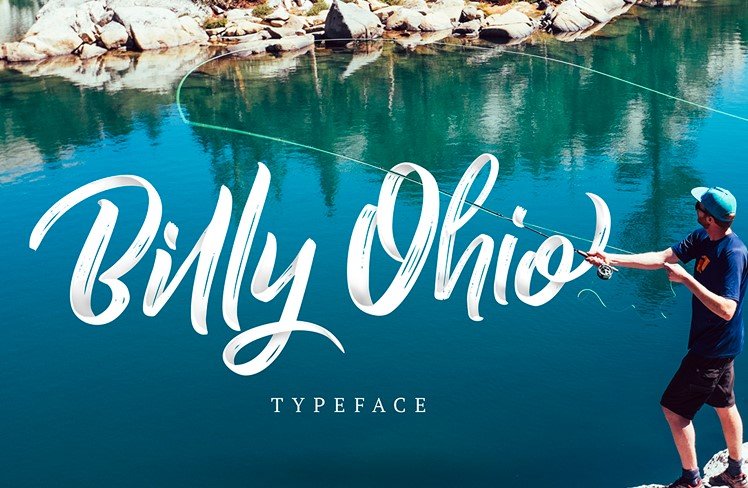
If you're looking to present some impressive designs to your client, you should start using a brush typeface like the Billy Ohio Brush Font, which boasts a fresh, modern, and cool structure. This beautiful typeface is usable as pairing with the combination of miami vice font which is an elegant and much useful, well-suited typeface for eye-catchy works.
You can download this scripted and brushed typeface along with all features in truetype format that can easily installable in all computers system you have. View Of Billy Ohio Brush Font It is one of the best attractive feasible typefaces which is full of super classical styles.
This is eye fascinating and futuristic typeface that is great to use with granjon font which is perfect to makes large screen projects without any cost. It will be your loved typeface when you will use it at least one time.